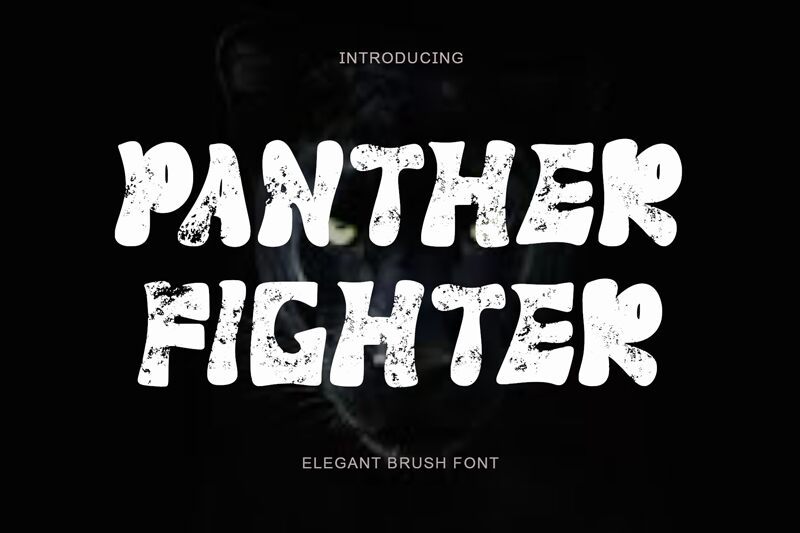
Panther Fighter
Panther Fighter font, designed by Yoga Letter, exudes an unmistakable character with its bold, eroded style. The distinctive, rugged edges create a sense of movement and energy, making it perfect for projects that seek to evoke strength and dynamism. Its striking aesthetic captures attention effortlessly, blending a playful yet assertive vibe.
Ideal for branding in sports or adventure-themed designs, Panther Fighter can also elevate album covers and poster art by adding an element of raw authenticity. Whether used in vibrant action-oriented contexts or more subdued artistic expressions, this font's unique charm ensures it stands out while resonating with audiences seeking a touch of the wild.